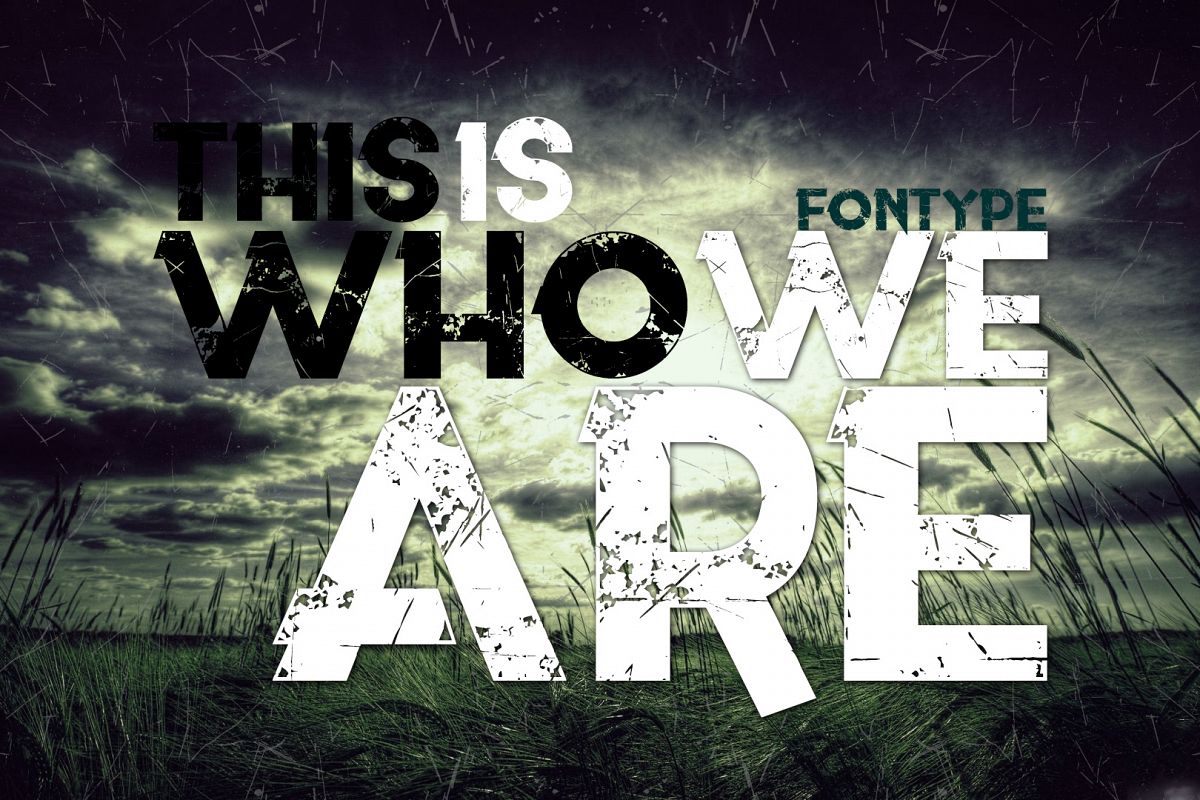
A typographic font inspired by the song of As I Lay Dying “This Is Who We Are” with a semi-normal design and a worn texture based on scratches.Its composition has the main characters and symbols of the English, Spanish and also partially compatible languages such as German, French, Portuguese and others.